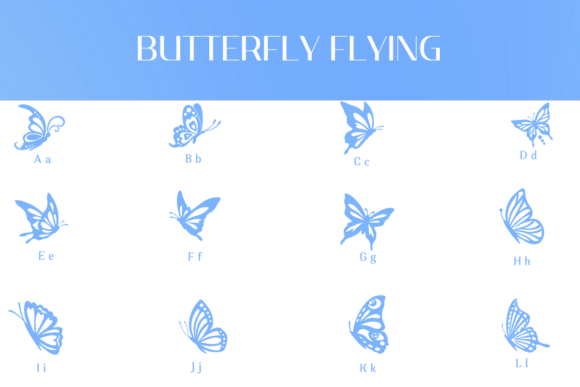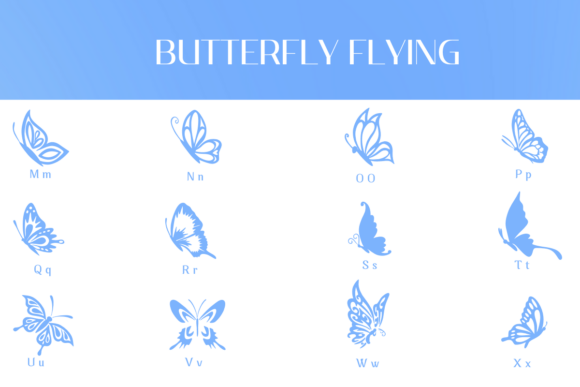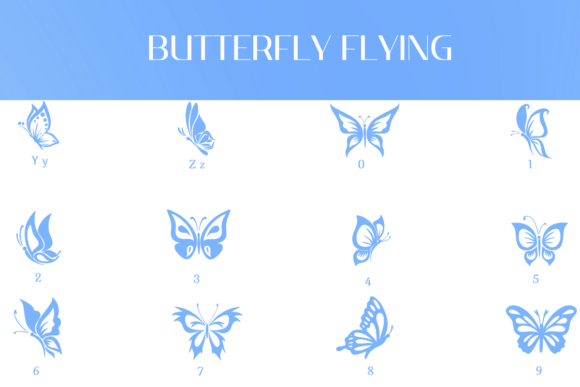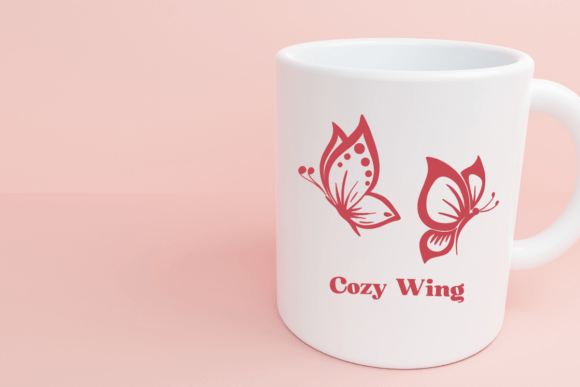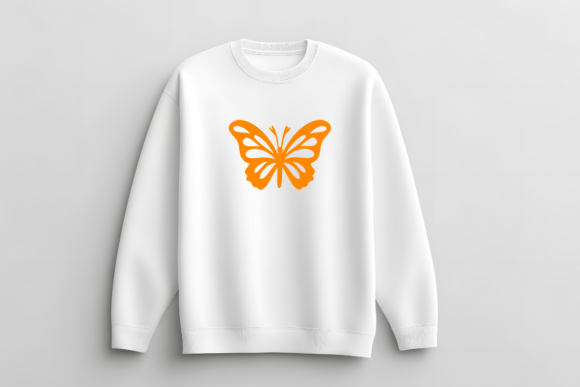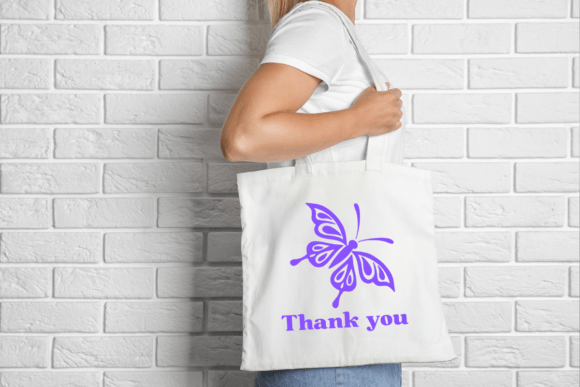
Introduction to Butterfly Flying Font
As a designer, I’ve had countless moments where I’ve stared blankly at a blank page, searching for the perfect element to elevate my creative project. One such moment led me to stumble upon the Butterfly Flying Font, a charming dingbats font that added a whimsical touch to my design. I was hooked from the start, and I couldn’t wait to explore the endless possibilities it offered.
With its delicate, hand-drawn illustrations of butterflies in mid-flight, the Butterfly Flying Font is a design resource that can add a touch of elegance to any project. Whether you’re working on a free download, a social media post, or a high-quality print, this font is sure to make a lasting impression. And the best part? It’s available for free download, making it a valuable addition to any designer’s toolkit.
As I delved deeper into the world of the Butterfly Flying Font, I discovered its versatility and endless applications. From greeting cards to banners, mugs to stationery, this font can be used to create a wide range of designs. And with its transparent background, it’s easy to use and customize to suit your needs.
Key Features of Butterfly Flying Font
• Unique and playful design, perfect for creative projects and design resources.
• High-quality font with transparent background, ideal for use in digital design and graphics.
• Font size: 1000px ( scalable for larger or smaller designs), with a resolution of 300 DPI for crisp and clear text.
• Perfect for use in digital projects, including social media graphics, flyers, and presentations.
• Unique characteristics: delicate and whimsical feel, making it suitable for children’s products, fashion, and lifestyle brands.
Honest Review: Butterfly Flying Font
I recently stumbled upon the Butterfly Flying Font while searching for a design resource to use in a creative project. The first thing that caught my attention was the beautiful, high-quality design of the font.
• Unique and creative design: The font is unlike any other I’ve seen, with intricate details and a transparent background that makes it perfect for use in various design projects.
• ⚠️ Limited character set: The font only includes a limited set of characters, which may not be suitable for use in longer texts or documents.
• ⚠️ Not suitable for all designs: The font’s unique design may not be suitable for all types of projects, particularly those that require a more formal or traditional look.
Overall, I think the Butterfly Flying Font is a great design resource for creative projects, particularly those that require a touch of whimsy and personality. While it may have some limitations, the font’s unique design and high-quality make it a valuable addition to any designer’s toolkit.
Tips for Getting the Most Out of Butterfly Flying Font
To get the most out of the Butterfly Flying Font, experiment with different font sizes, colors, and styles. You can also combine it with other fonts to create a unique and eye-catching design. Don’t be afraid to try out new ideas and push the boundaries of what’s possible with this high-quality design resource.
The Butterfly Flying Font is perfect for a variety of creative projects, including social media graphics, website headers, and presentation slides. Its transparent background and high-quality design make it a versatile design resource that can be used in a range of contexts, from business to personal projects.
What is the recommended resolution for using the Butterfly Flying Font?
For optimal results, we recommend using the Butterfly Flying Font at a resolution of 300 DPI or higher. This ensures that the font appears crisp and clear, even when enlarged or used in large-scale designs. Using the font at a lower resolution may result in pixelation or blurriness.